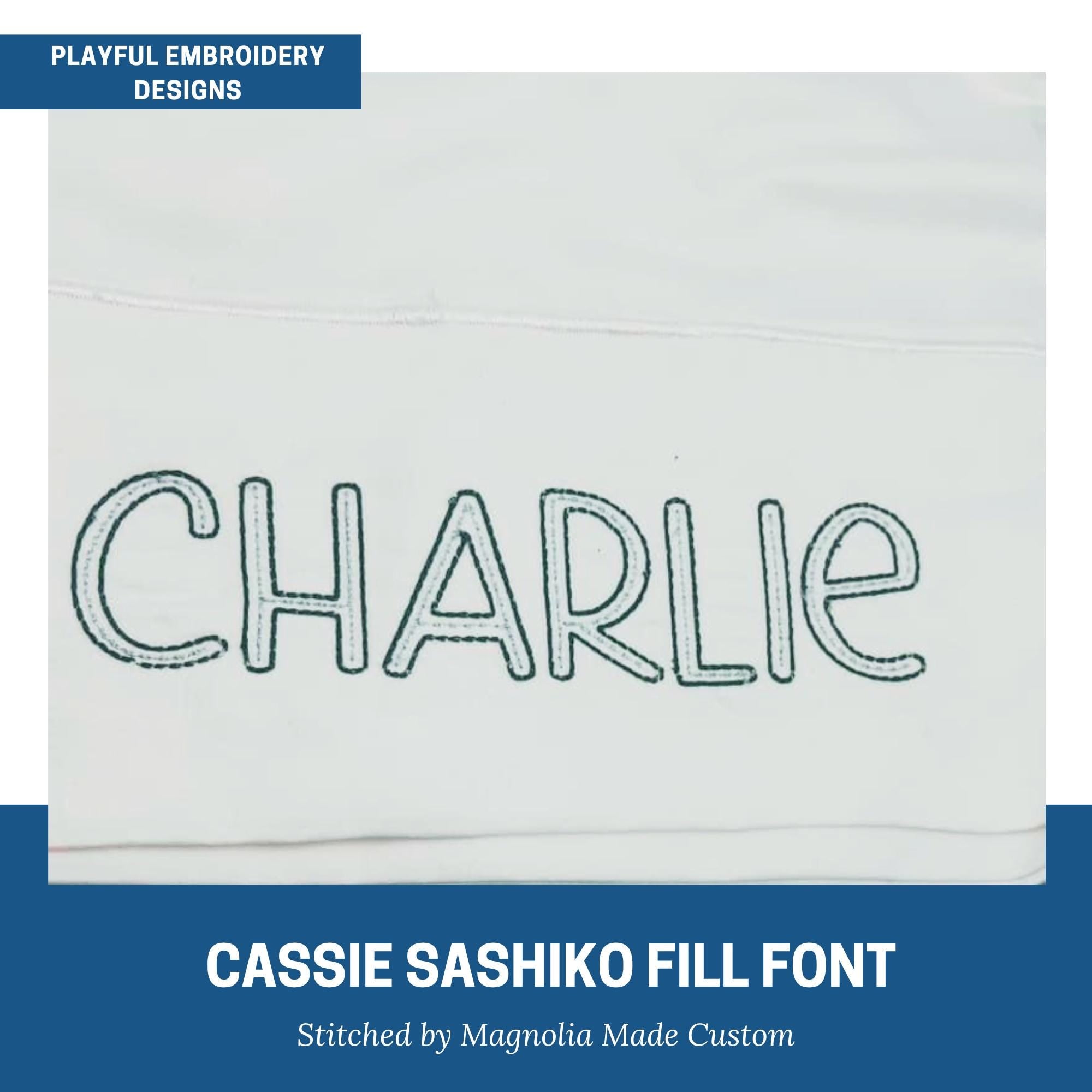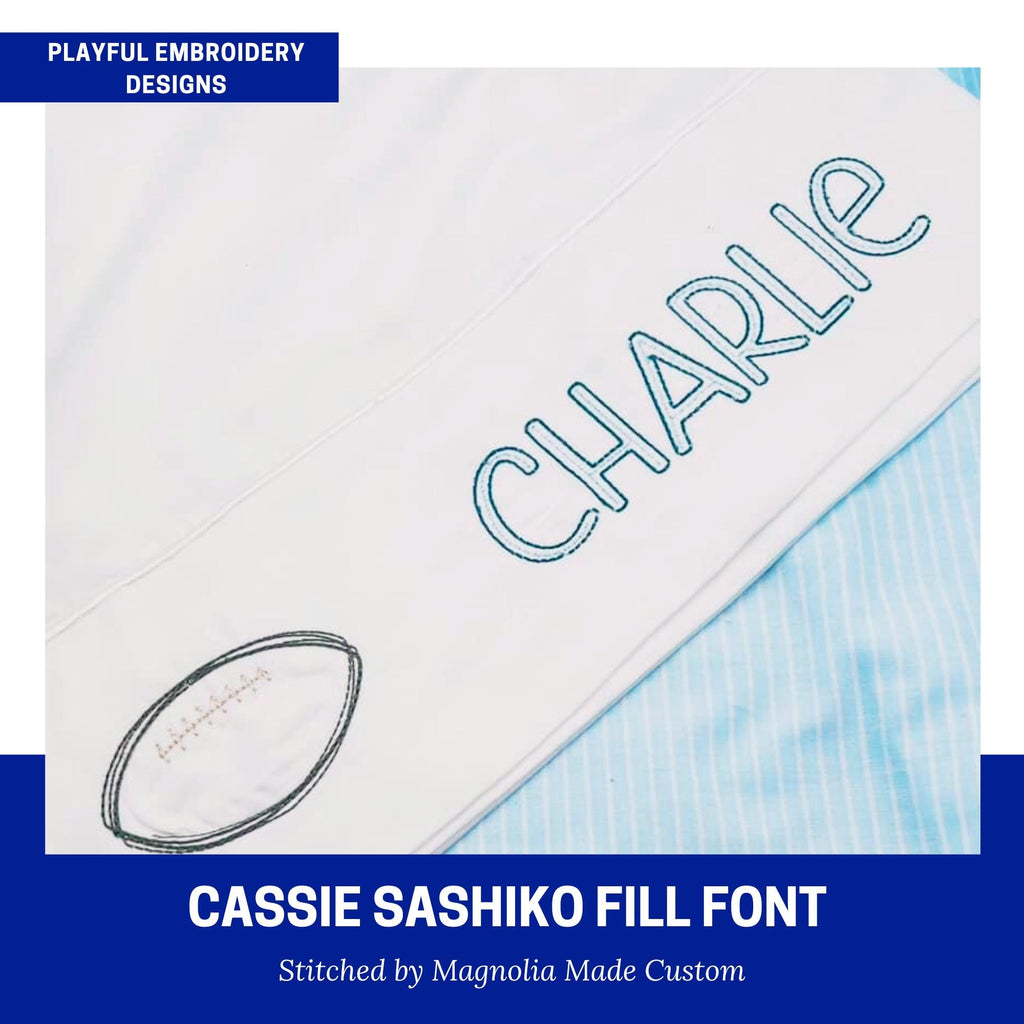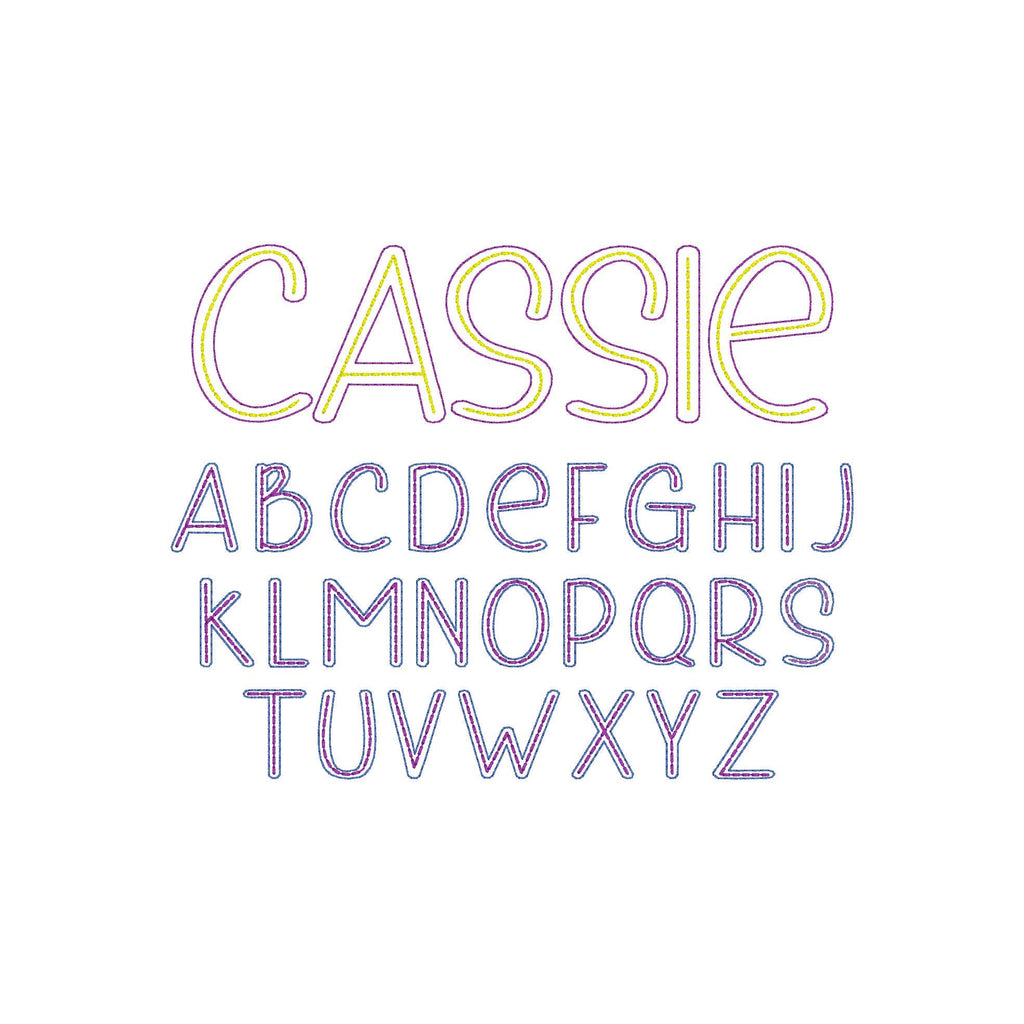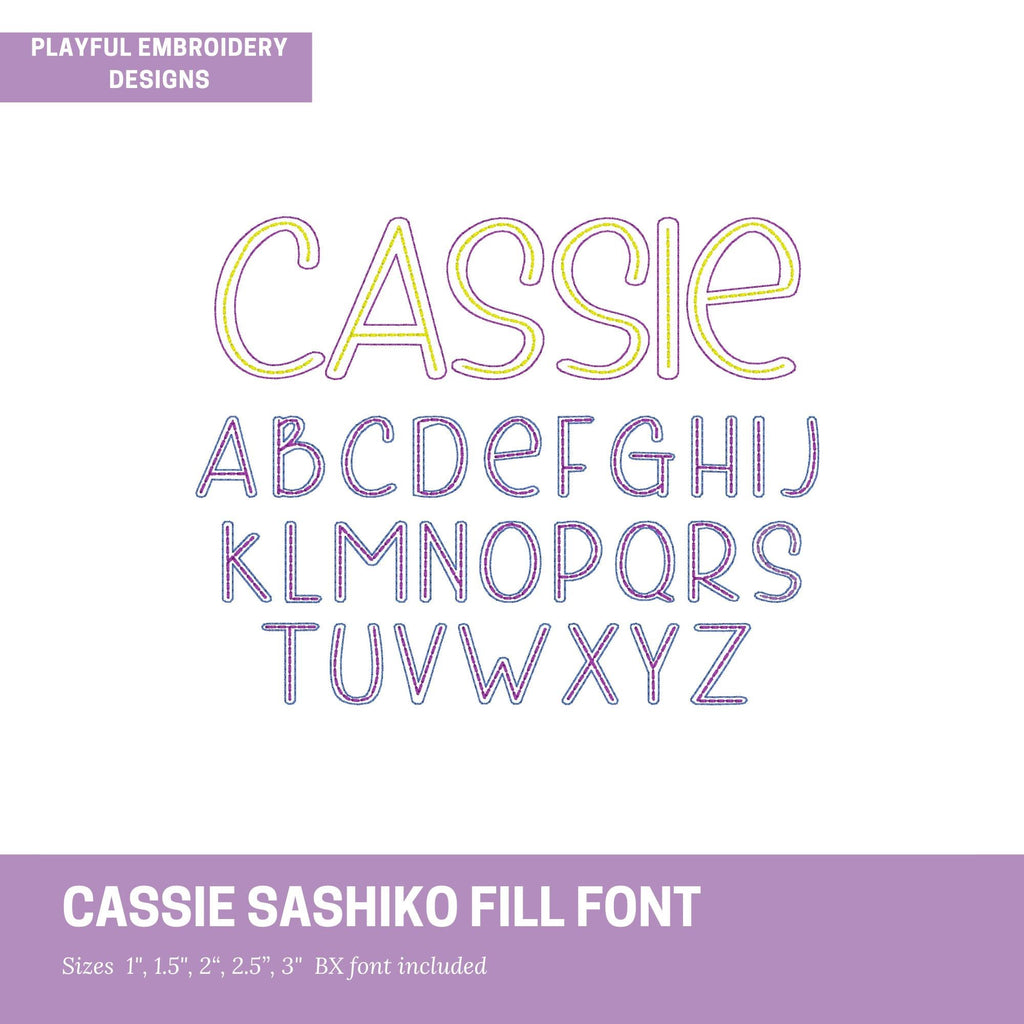
Cassie Sashiko Fill Outline Font Design, Bean Stitch Machine Embroidery Font, 1", 1.5", 2", 2.5", 3" font size, BX Monogram Font
Cassie bean stitch outline with a sashiko fill font design for machine embroidery. A fun font for kids. Change up the colors for a rainbow effect or keep it tonal.